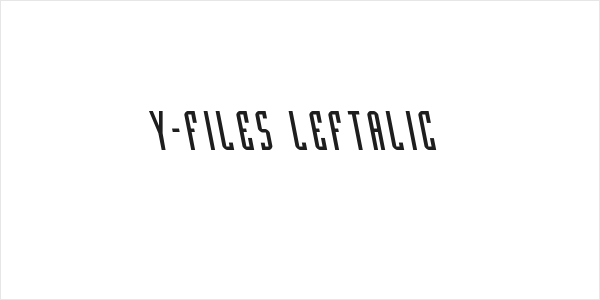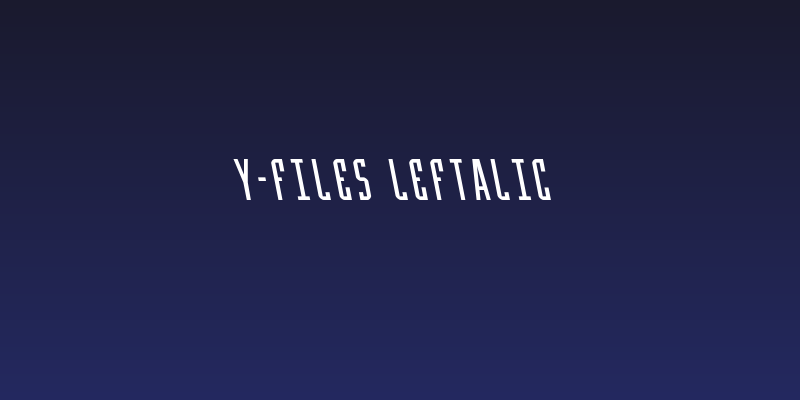
Y-Files Leftalic Font
Y-Files Leftalic Description
This font features a distinctive slanted style, giving it a dynamic and forward-moving appearance. The characters are tall and narrow, with a consistent stroke width that maintains clarity and readability. The uppercase and lowercase letters are well-proportioned, and the numbers follow the same stylistic cues, ensuring uniformity across all characters. Special characters are included, matching the overall aesthetic. The font's design is modern and sleek, making it suitable for projects that require a contemporary and energetic look.
| Proposed Projects | Ideal for branding, sports team logos, dynamic posters, and modern web design. |